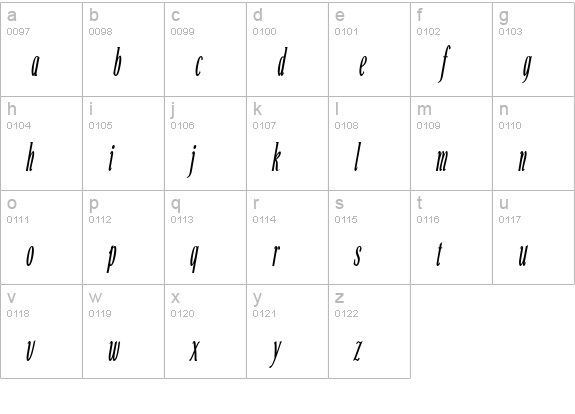
Echelon Condensed Italic is a distinctive, condensed-width, italic variant in the Echelon typeface family \xE2\x80\x94 well suited to design and typography projects.
Echelon Condensed Italic font is a stylish and sophisticated typeface that exudes elegance and modernity. Its sleek and slanted design adds a touch of flair to any project, making it perfect for fashion magazines, luxury branding, and high-end advertisements. This font boasts a condensed structure, which allows for more text to be displayed in a limited space without compromising legibility. The italicized letters create a sense of movement and dynamism, making it an excellent choice for adding emphasis or creating eye-catching headlines. Echelon Condensed Italic font is versatile and adaptable, suitable for both print and digital media. Its clean lines and refined curves ensure a professional and polished appearance, while its unique italic style adds a touch of personality and uniqueness to any design. One of the best features of Echelon Condensed Italic font is that it is available for free download at FontsMarket.com. This means that designers and creatives can easily access this stunning font without any cost. Whether you are a professional designer or a hobbyist, this font provides an opportunity to elevate your designs without breaking the bank. With Echelon Condensed Italic font, you can effortlessly elevate your projects with a touch of sophistication and modernity. Its free availability at FontsMarket.com makes it a valuable asset for any designer looking to enhance their typographic arsenal. So go ahead and download Echelon Condensed Italic font today and unlock a world of stylish possibilities for your next design endeavor.